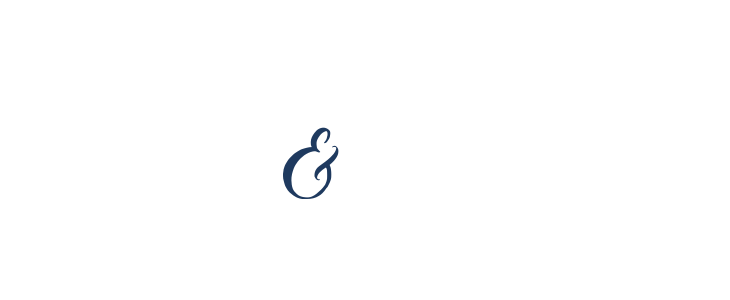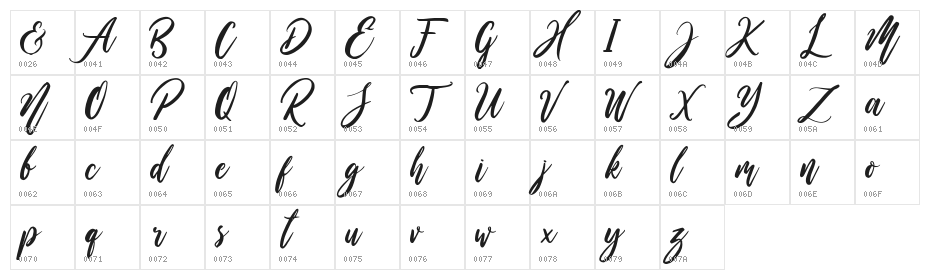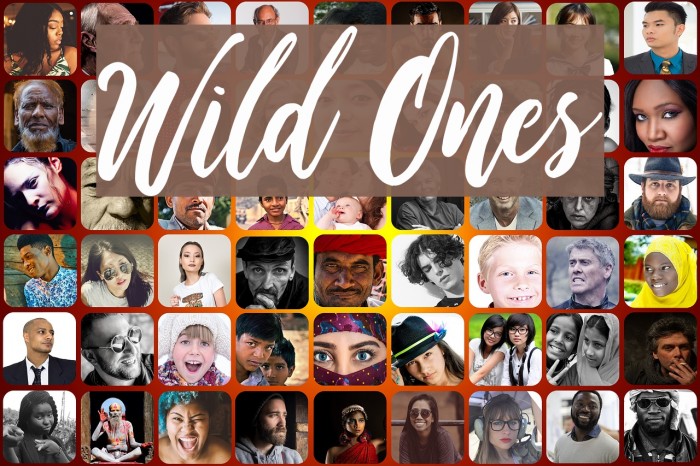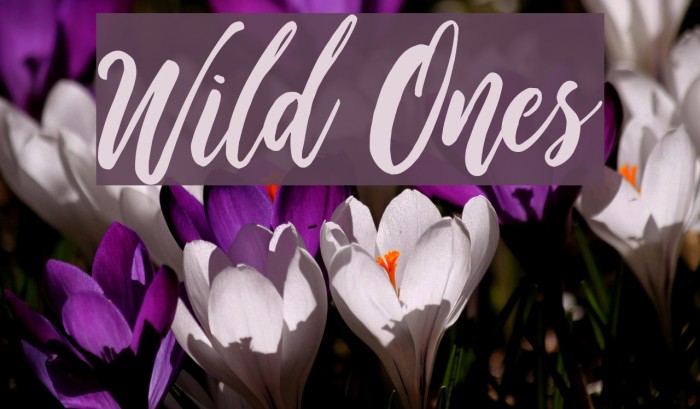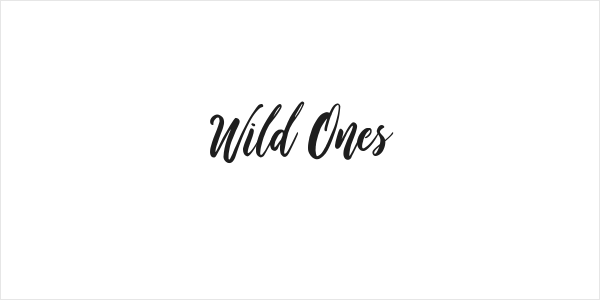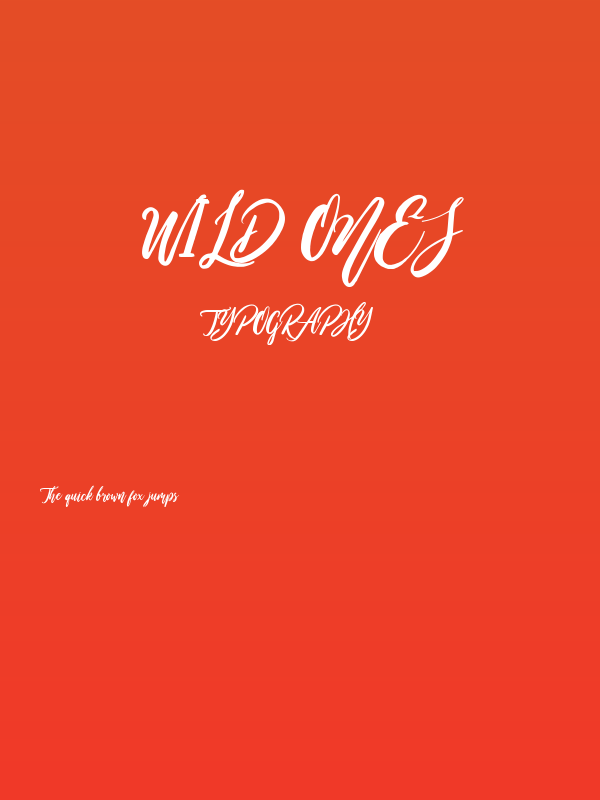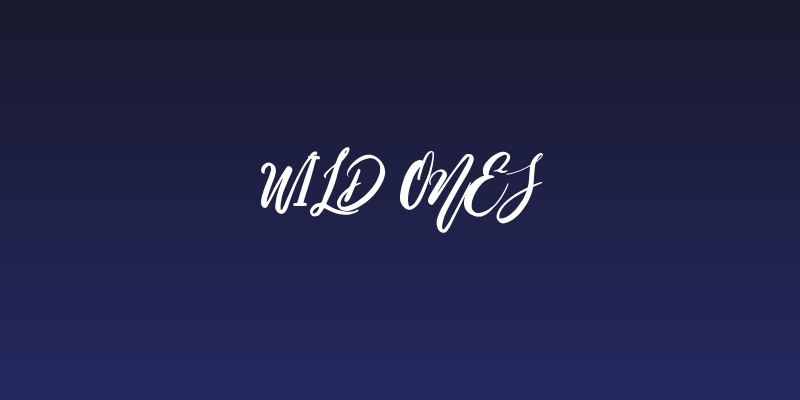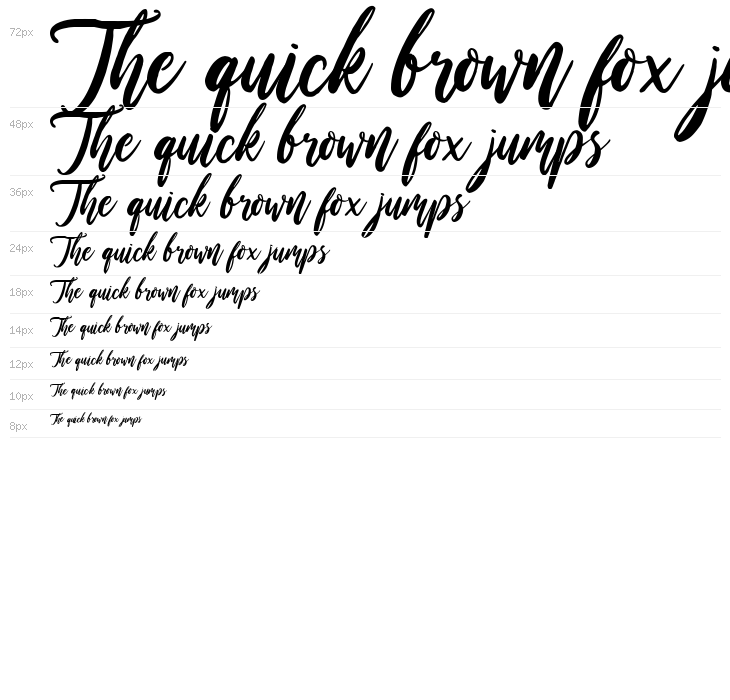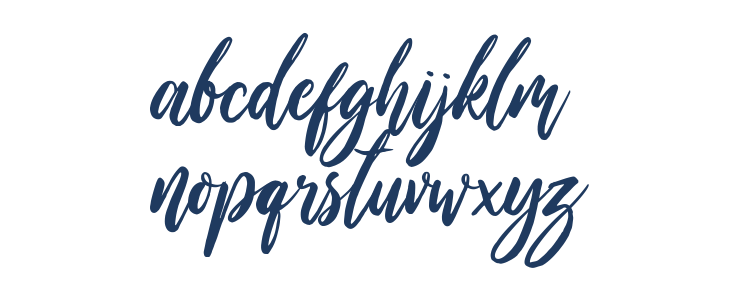
Wild Ones Font
Wild Ones Description
This font exudes a dynamic and expressive style, characterized by its fluid, cursive script that mimics the natural flow of handwriting. The letters are interconnected with sweeping, elegant strokes, giving it a sense of movement and grace. The bold, thick lines contrast with delicate, thin curves, creating a high contrast that enhances its visual impact. The uppercase letters are particularly ornate, with flourishes and loops that add a decorative touch. The lowercase letters maintain a consistent rhythm, complementing the uppercase with their slightly more restrained design. This font is perfect for projects that require a personal, artistic touch, such as invitations, branding, and creative headlines.